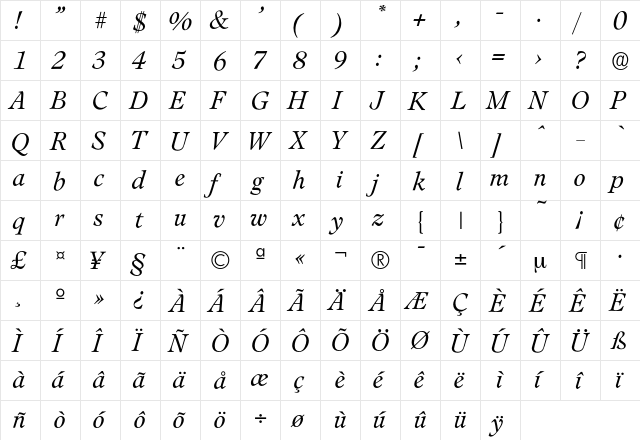
Leamington-LightIta Regular Font Preview
Leamington-LightIta Regular
Leamington-LightIta Regular Font Details
Design Context for Leamington-LightIta Typeface
Leamington-LightIta takes a measured approach to typography — its balanced proportions and neutral character make it a reliable workhorse for both digital and print work. Its slender proportions lend an understated elegance to any composition.